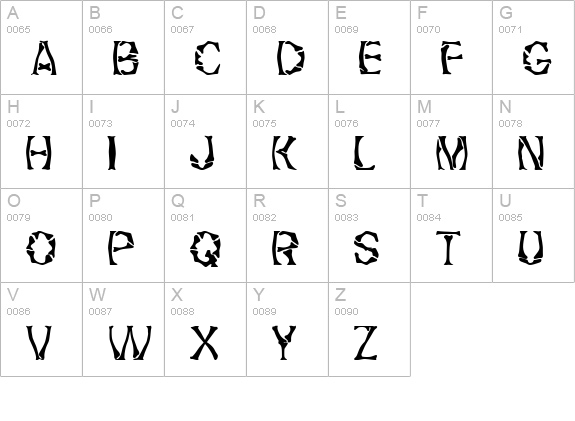
Intaglio Font Details
Intaglio font is a captivating typeface that exudes elegance and sophistication. With its intricate details and classic design, Intaglio is perfect for adding a touch of luxury to your projects. The sleek lines and graceful curves of this font make it a versatile choice for a wide range of design applications. The best part about Intaglio font is that it is available for free download at FontsMarket.com. Whether you're working on a branding project, creating invitations, or designing a website, Intaglio font will bring a touch of timeless beauty to your work. Don't miss out on this opportunity to elevate your designs with the stunning Intaglio font – download it today and unleash your creativity!